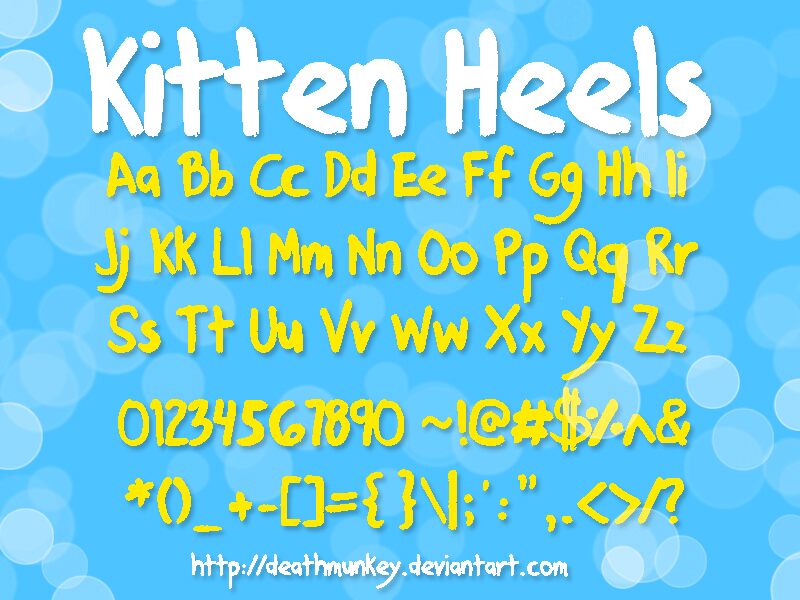
Denne Kitten Heels by Denise Bentulan is a free chunky handwritten display font with the bounce of quick brush lettering. Its broad, uneven strokes make the letters look hand-painted rather than carefully drawn. The curves stay soft and lively.
Playful food, children's entertainment, and casual music themes suit its friendly handmade shapes. It can turn snack packaging or event posters into something immediate and informal. Across these uses, rounded forms and shifting stroke widths echo loose marks in character art, painted signs, and doodled graphics.